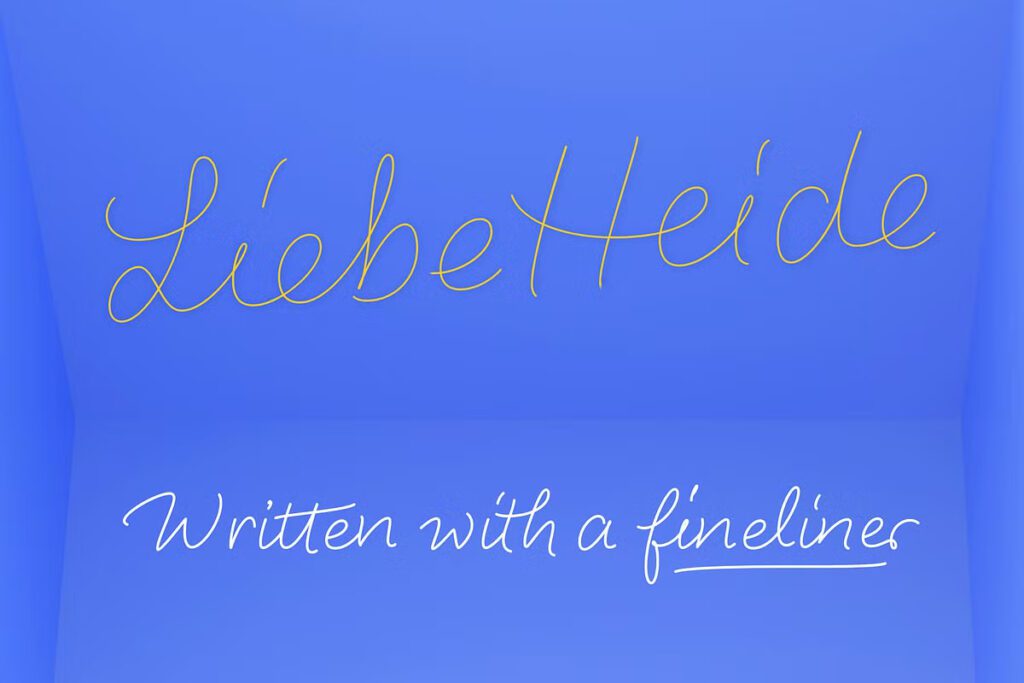
LiebeHeide Fineliner: The Award-Winning Handwritten Font
Introducing LiebeHeide Fineliner, the vector version of the award-winning color font, now offering more versatility and lifelike appeal than ever before! With clean lines, smooth curves, and a personal touch, LiebeHeide Fineliner goes beyond the standard handwriting font, offering an authentic handwritten feel to your designs.
What Makes LiebeHeide Fineliner Unique?
This finely crafted font brings a friendly, natural touch to any project. Whether you’re working on personal designs, branding, or serial mailings, LiebeHeide Fineliner ensures that your text flows naturally. Packed with a vast range of ligatures, it creates smooth, organic connections between letters, adding a lifelike quality to your text.
Not only does it come with multiple ligatures, but LiebeHeide Fineliner also provides numerous alternatives for each letter. This feature allows for endless customization, ensuring that no two designs look alike—making your typography both unique and personal.
Features of LiebeHeide Fineliner:
Five Weights: Available in Light, Regular, Medium, Bold, and Black to suit your design needs.
Natural Flow: Ligatures and alternate characters ensure a seamless and lifelike handwritten appearance.
Versatility: Ideal for everything from personal projects to professional branding, serial mailings, and more.
Unique Lettering: Offers a wide range of letter variants for each character, ensuring no two designs are the same.
Perfect For:
Branding & Logos: Create a friendly, approachable brand presence with a unique handwritten touch.
Personal Projects: Add a personal, stylish look to invitations, greeting cards, or personal notes.
Serial Mailings: Capture attention and make a lasting connection by giving your correspondence a customized feel.
Why Choose LiebeHeide Fineliner?
The clean lines, smooth curves, and natural connections make LiebeHeide Fineliner an excellent choice for designers looking for a font with a personal touch. Whether you’re crafting branding material or designing a unique invitation, this font adds a human element to your project, making it stand out.
Capture the organic feel of handwriting with the lifelike charm of LiebeHeide Fineliner.